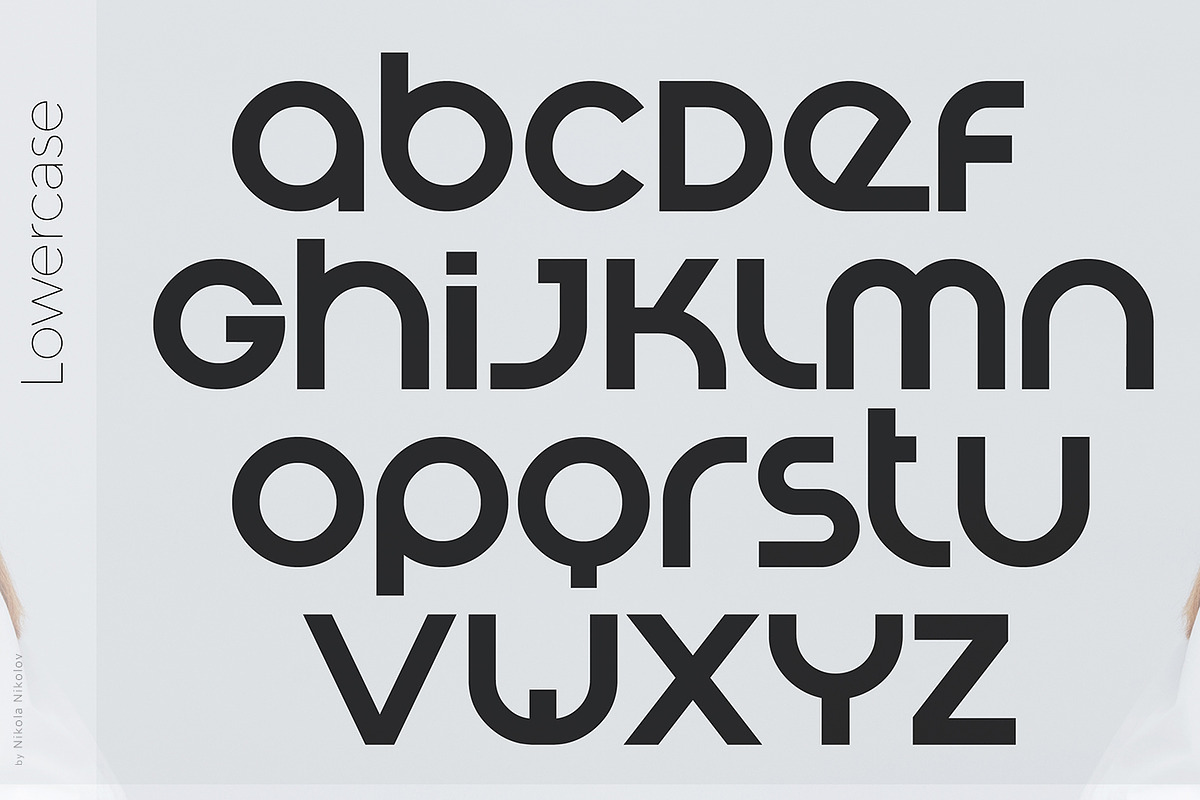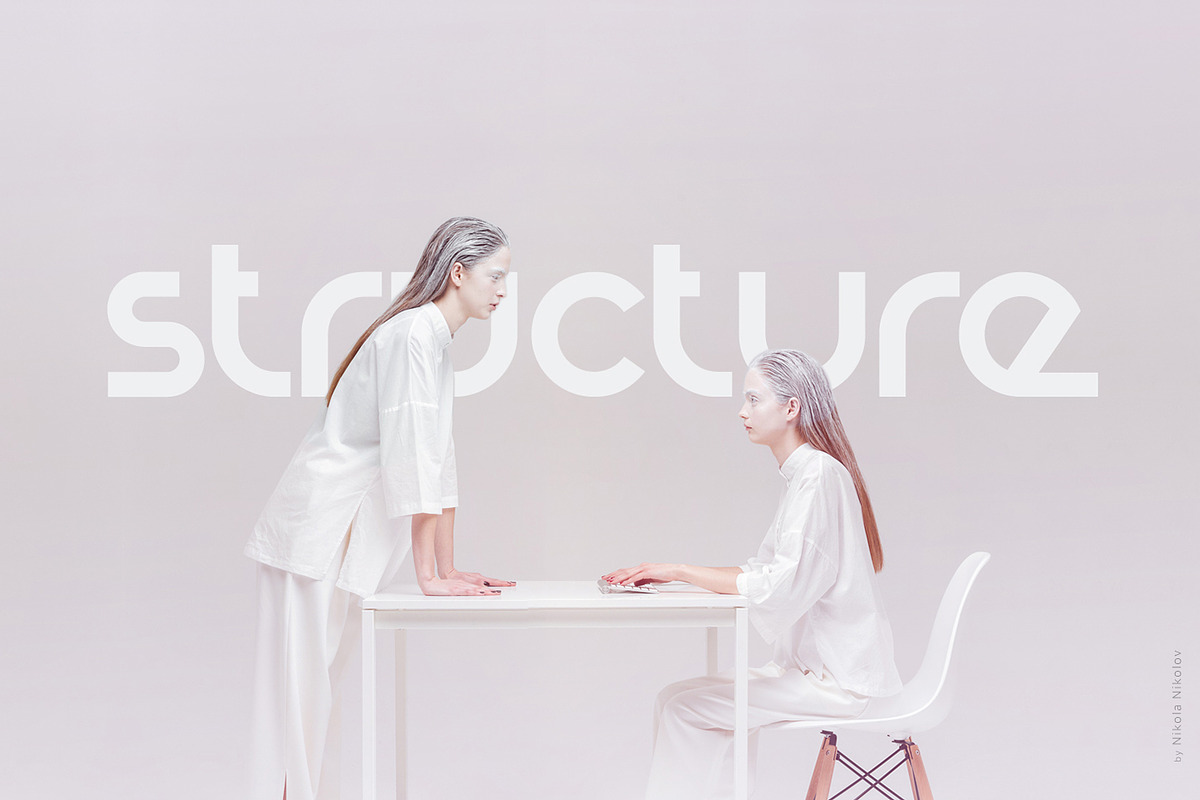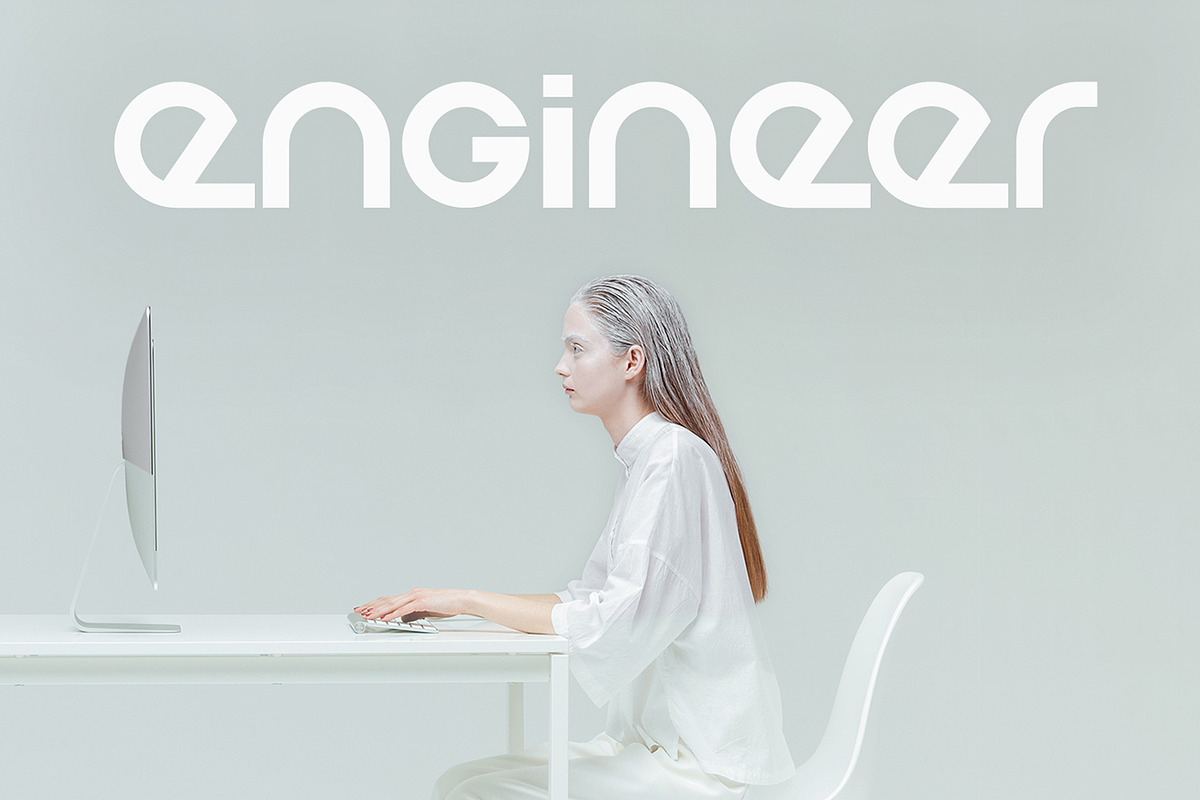
Orborn is a round geometric experimental font. Specifically developed to be suitable for logos, headlines, titles and posters. It has a pronounced futuristic vision and could be called a modern font, even though it is suited in a retro ambient.